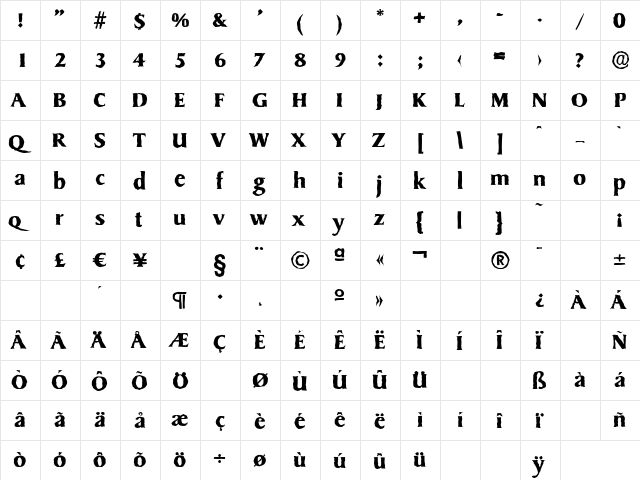
SydneyAntique Bold
Design Context for SydneyAntique Typeface
SydneyAntique wears its vintage influences proudly, with letterforms that recall mid-century signage, classic packaging, and nostalgia-driven design. Its bold stroke weight gives it real presence on the page.
Ideal for diner signage, record shop branding, 70s/80s-themed projects, and heritage product labels.
Font Pairing: Combine SydneyAntique with a simple slab or neutral sans — period-accurate companions reinforce the vintage feel without competing for attention.
Pro Tip: Lean into SydneyAntique's period character by pairing it with aged paper textures, muted colour palettes, and vintage illustration styles.